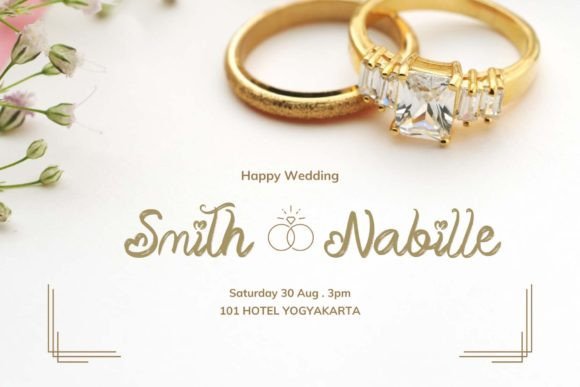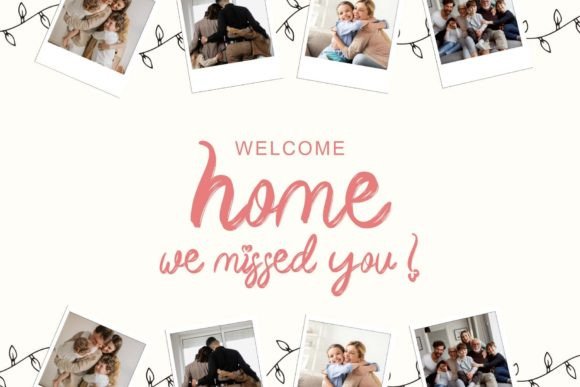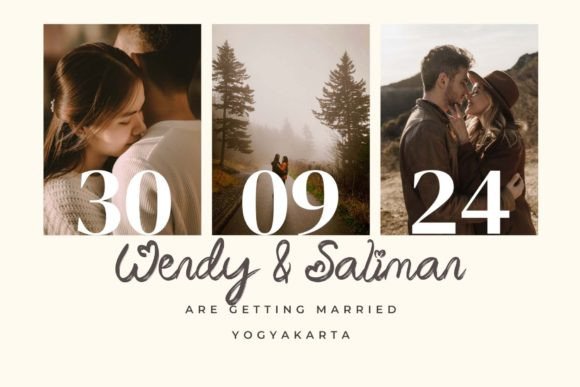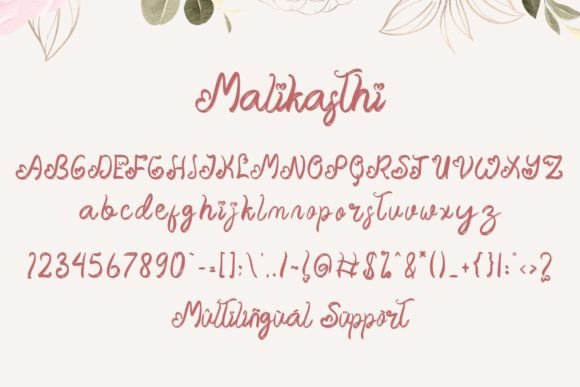
Introduction to Malikasthi Font
Do you remember the moment when you stumbled upon that perfect font that elevated your creative project from ordinary to extraordinary? For many designers, finding the right font can be a game-changer, and that’s exactly what the Malikasthi Font offers. This elegant and beautiful brushed handwriting font is a treasure trove of design possibilities, making it a valuable addition to any designer’s toolkit.
Whether you’re working on a wedding invitation, a business branding project, or a creative campaign, the Malikasthi Font is an excellent choice. Its high-quality design and transparent background make it perfect for various applications, from stickers and banners to posters and branding materials. With free download options available, designers can experiment with this versatile font without breaking the bank.
As a design resource, the Malikasthi Font is a must-have for any creative project. Its multilingual support and extensive character set make it an excellent choice for designers working on global campaigns. In this article, we’ll delve into the world of Malikasthi Font and explore its features, applications, and benefits for designers.
Key Features of Malikasthi Font
- High-quality design with intricate details, perfect for creative projects.
- Comes with a transparent background, allowing for seamless integration into various design resources.
- Features a unique, hand-drawn style that adds a personal touch to any design project.
Honest Review: Malikasthi Font
I recently stumbled upon the Malikasthi Font, and I must say it’s a great addition to any designer’s toolbox. This high-quality font is perfect for any creative project, and its transparent background makes it super easy to use.
- ✨ High-quality design: The Malikasthi Font is beautifully crafted, with a unique and stylish aesthetic.
- ✨ Versatile: This font is perfect for a wide range of creative projects, from logos to typography-heavy designs.
- ⚠️ Limited font weights: The Malikasthi Font only comes in a few weights, which might limit its use in certain design contexts.
- ⚠️ Not ideal for small text: Due to its unique design, this font might not be the best choice for small text or body copy.
Overall, I’m impressed with the Malikasthi Font. It’s a great design resource that can add a touch of sophistication to any project. While it has some limitations, I think it’s a valuable addition to any designer’s toolkit.
For the best results, use the Malikasthi Font in conjunction with a high-quality image or background. You can also experiment with different font sizes and styles to add visual interest to your design.
The Malikasthi Font is a versatile design resource that can be used in a variety of creative projects, including logos, brochures, and social media graphics. Its transparent background makes it easy to layer over other design elements.